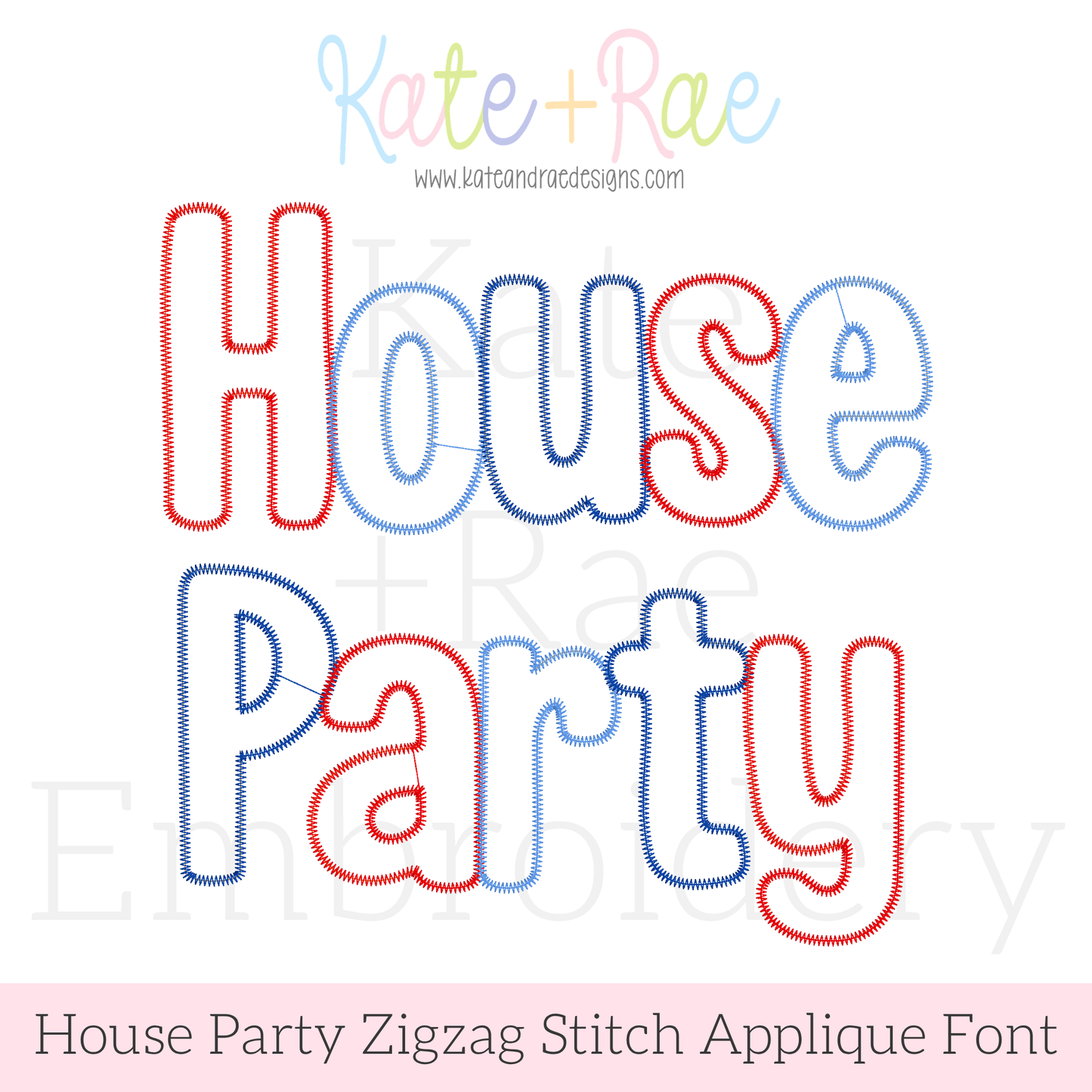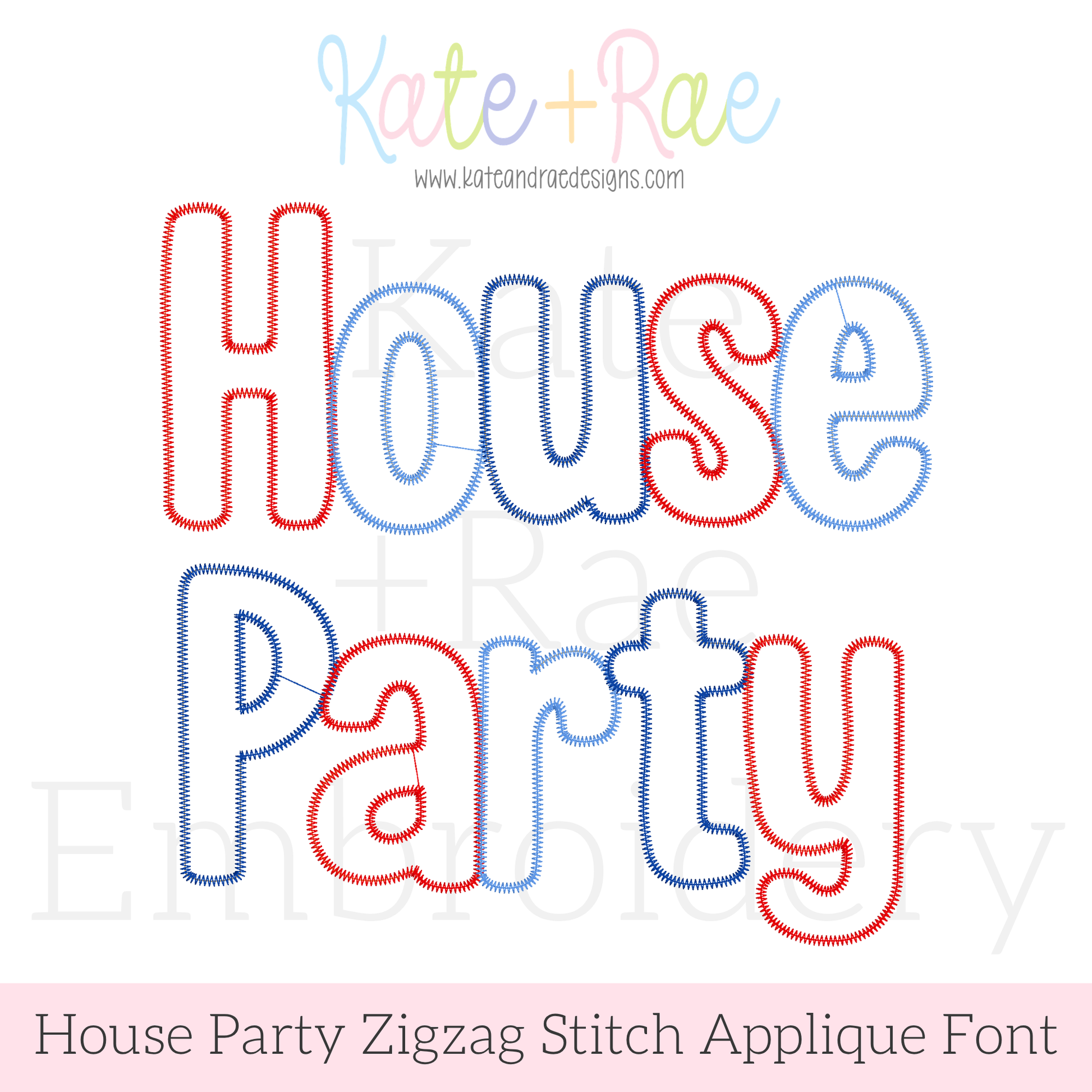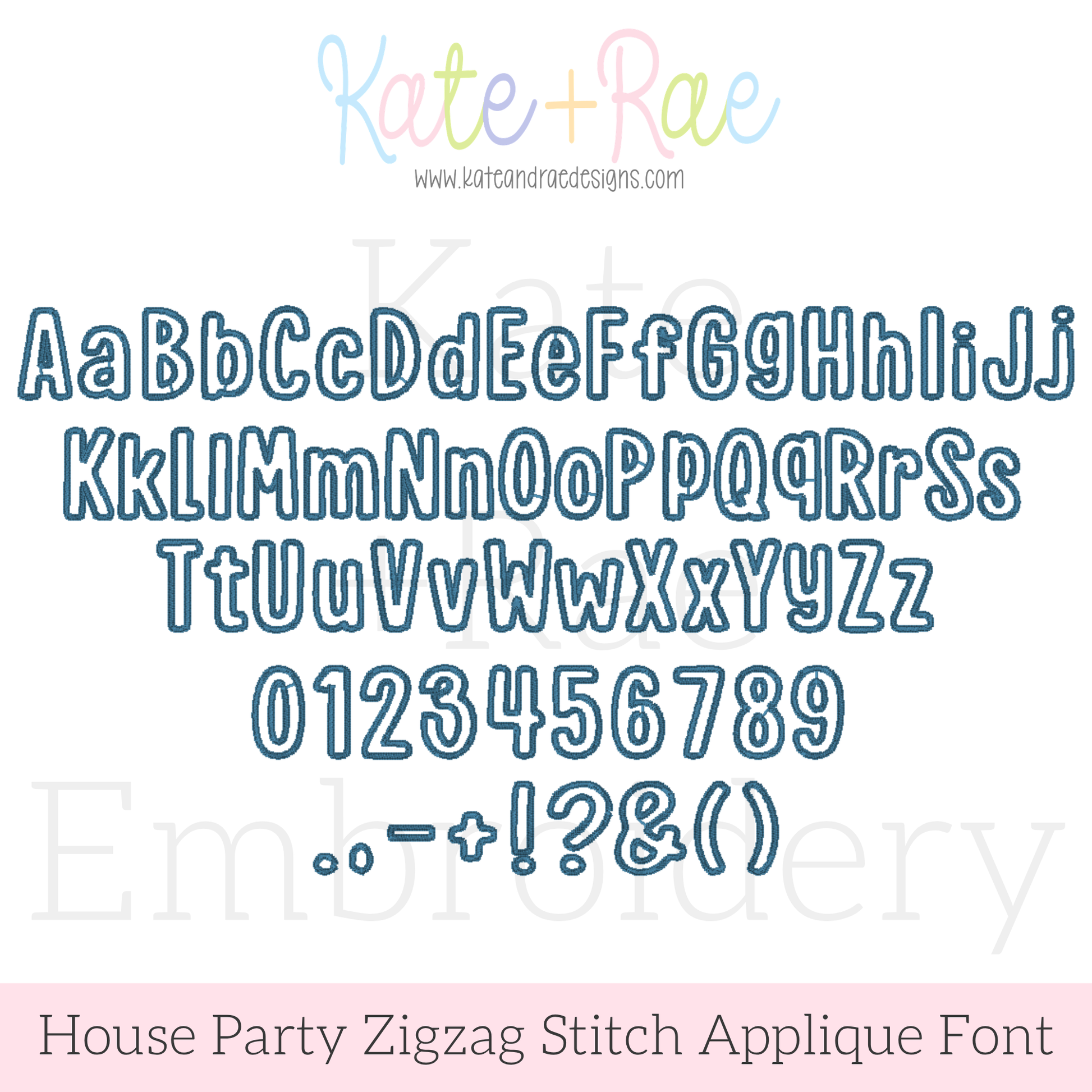
House Party Zigzag Applique Machine Embroidery Font
Meet House Party, a fun zigzag applique embroidery font! Personalize names on birthday shirts, kids' outfits, and everyday favorites.